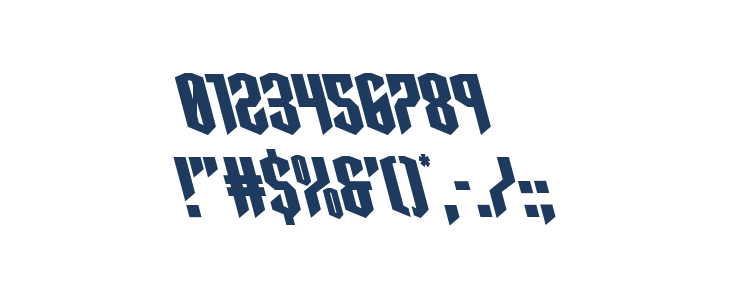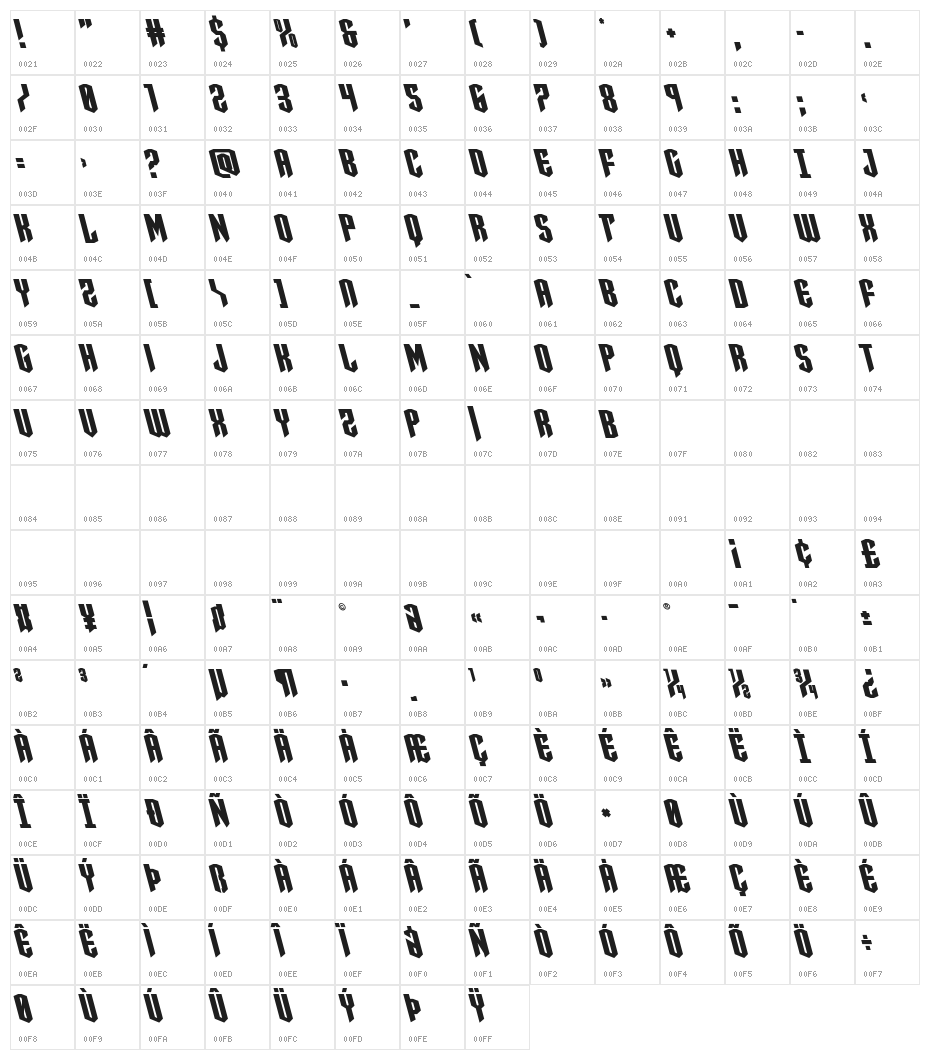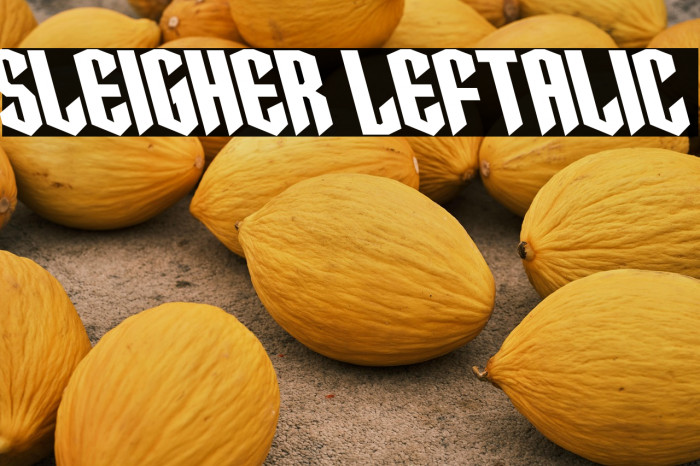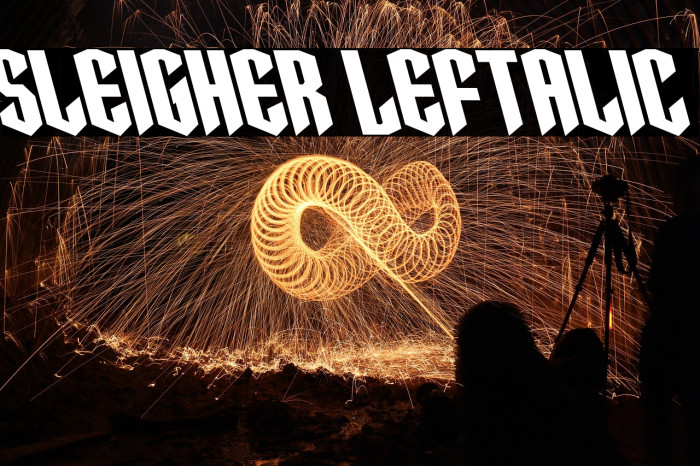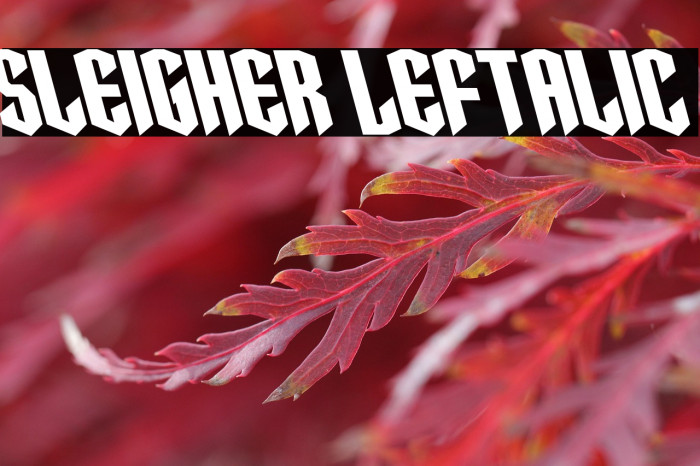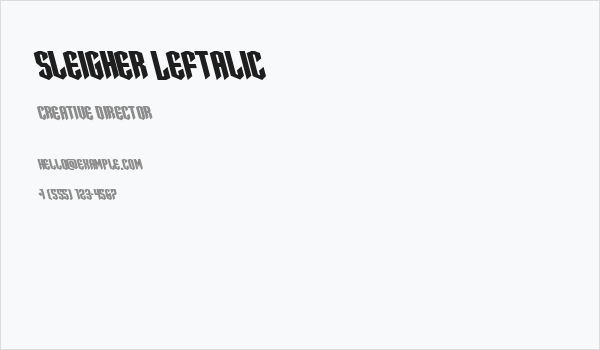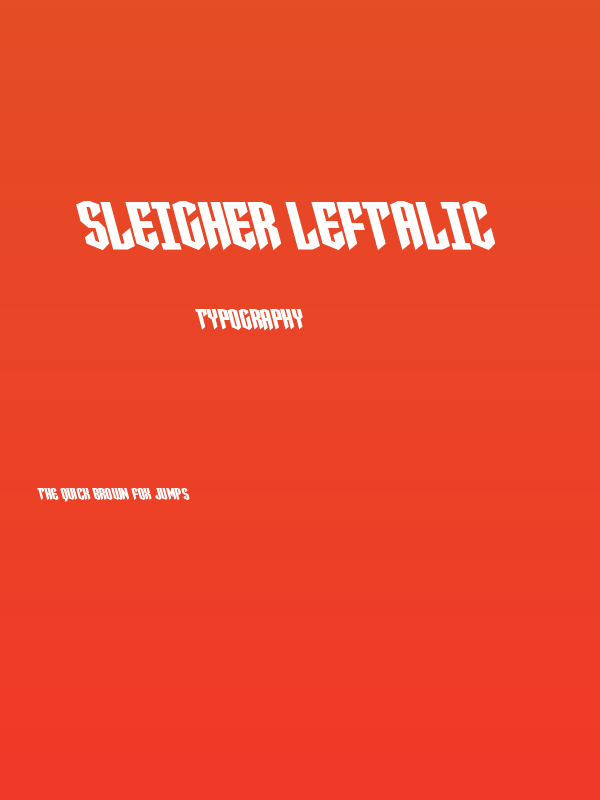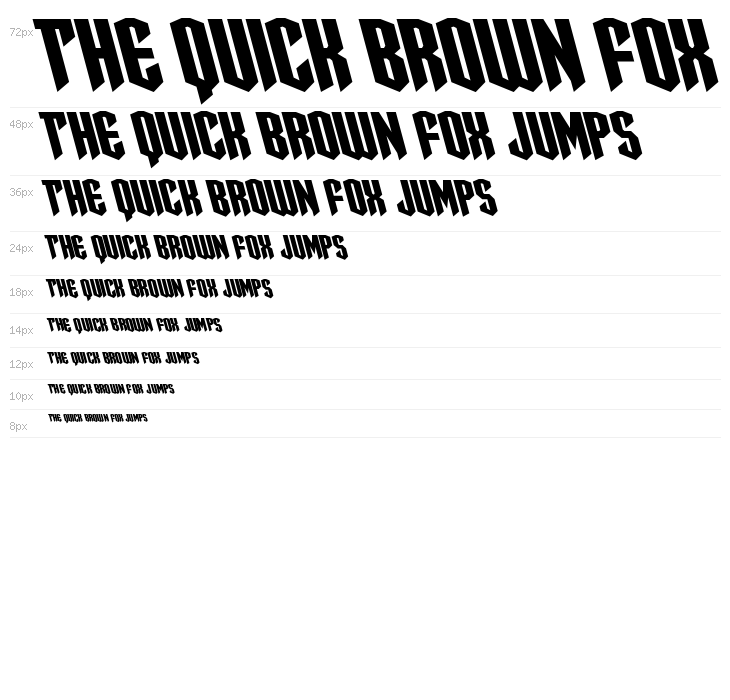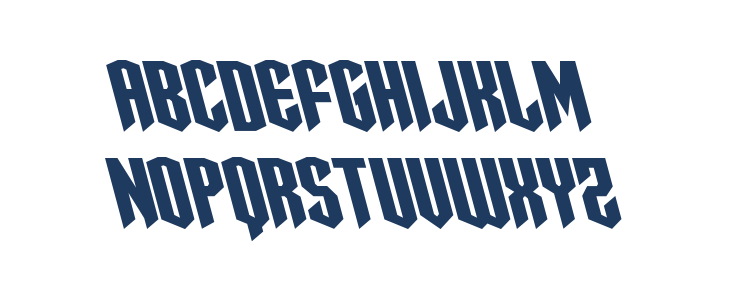
Sleigher Leftalic Font
Sleigher Leftalic Description
This font features a bold and angular design, characterized by sharp edges and a dynamic slant to the left. The uppercase and lowercase letters maintain a consistent geometric style, with each character exhibiting a strong presence. The numbers and special characters follow the same bold and angular theme, ensuring uniformity across all glyphs. The overall appearance is striking and modern, making it suitable for attention-grabbing designs.
| Overall Style | Modern, Edgy |
| Proposed Projects | Ideal for posters, album covers, video game titles, and any project requiring a bold, edgy aesthetic. |